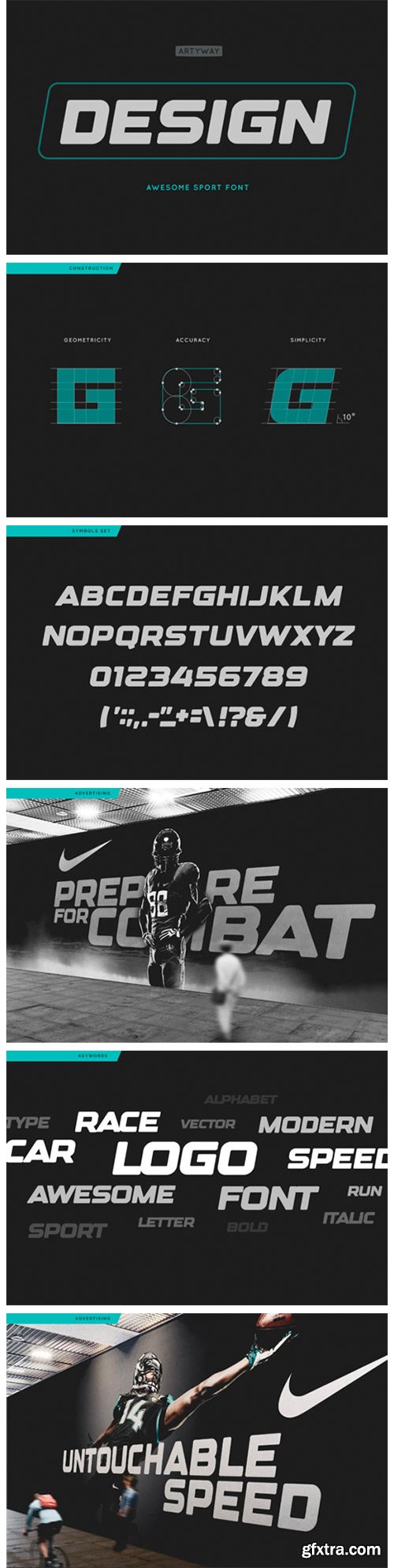
Design Font
Design is a bold and dynamic display font. This original look will appeal to a wide range of crafty ideas, from letterheads and titles, to stationery.